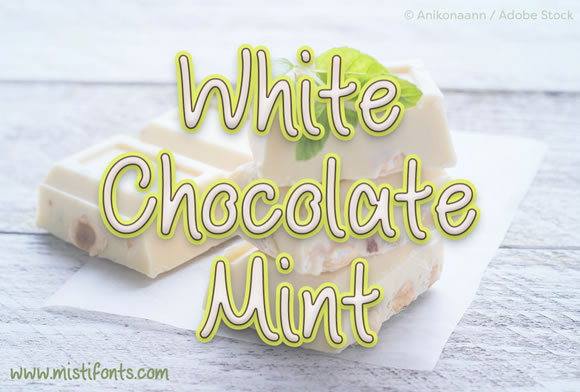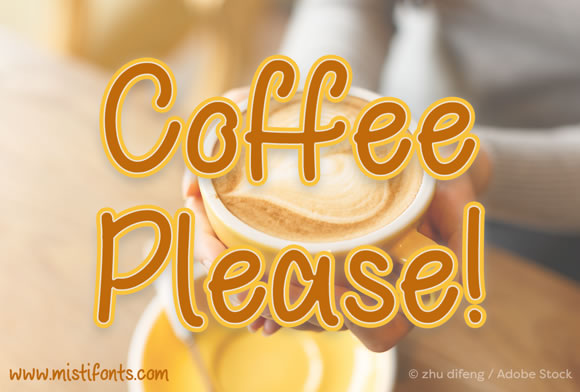
HomeScript FontsWhite Chocolate Mint Font Script Fonts White Chocolate Mint Font FacebookXPinterestWhatsApp White Chocolate Mint Font Poster 2 About White Chocolate Mint Font White Chocolate Mint is a casual handwriting font that is perfect for your crafting and design projects. DOWNLOAD ON CREATIVE FABRICAThis font is sold and delivered by Creative Fabrica. Font Canyon may earn a commission if you buy through this link. People also explored Haslley Beautiful Font Betty Rose Font Amilo Font Dolce Caffè The Fountain Font Smile Moliey Font Loyaltos Font Font Bright & Early Font Chocolate Hazelnut Font 275 0 TagsWhite Chocolate Mint Font Previous articlePaula Paulina FontNext articleMystique Font LEAVE A REPLY Cancel reply Comment: Please enter your comment! Name:* Please enter your name here Email:* You have entered an incorrect email address! Please enter your email address here Website: Save my name, email, and website in this browser for the next time I comment. Personal Use Free BD RatterBit Personal Use Free Read more about this font Anggiana Personal Use Free Read more about this font BD Algebra Personal Use Free Read more about this font Little Pigeon Personal Use Free Read more about this font BLOG To increase your work productivity, choose the most readable fonts. In today's fast-paced work environment, where digital communication and information consumption are integral to our daily routines, the choice of fonts can significantly impact... The 10 Best Handwriting Fonts to Add Personality to Your Designs Top 7 Google Fonts Alternatives for Faster and Privacy-Friendly Web Design (2025) Free vs Paid Fonts: Why Investing in Premium Fonts Is Worth It